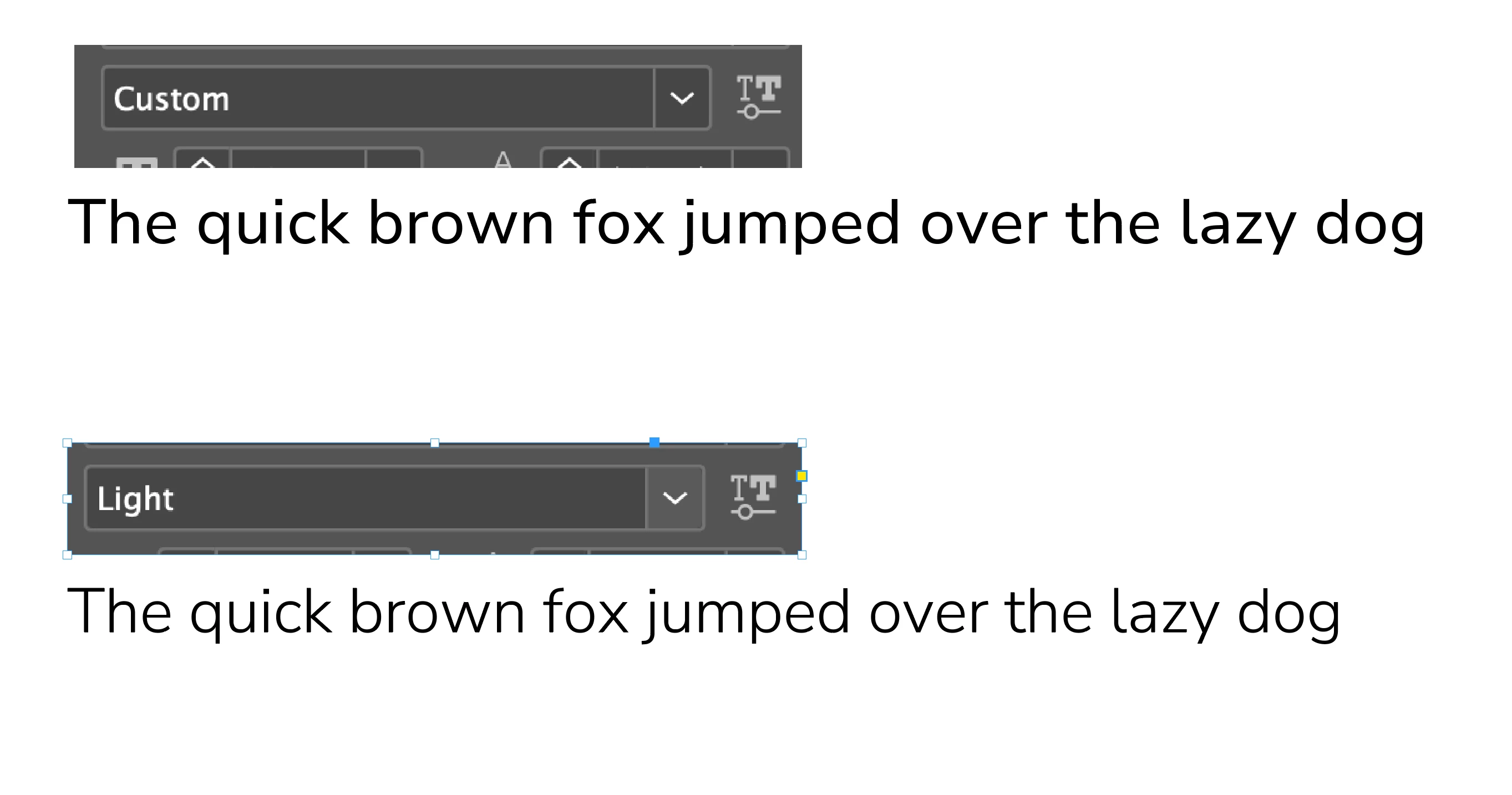
Variable Font automatically messing with spacing
Since the last update (InDesign 2024 up to date) I have noticed that on certain typefaces the variable font icon appears. Then when I either key in text, or cut and paste text into the text frame, the spacing changes below certain point sizes. I only notice this because it makes the typafce look odd.
I then noticed where the font weight should be displayed, the word custom is present. If I then go in and select the font I want ( bold, italic, regluar...) the spacing (kerning) between characters changes back to normal and the weight alters to how the font should be. Why is this auto kerning/bolding happening? I really don't want it, so is there a way of turning it off?
If you look at the images you will see the difference between how the font displays. It really is a discernable difference, enough to look like I have slected a different font.
I mentioned the paragraph style as a guess. On my machine, all this is working ok.
maybe the issues go away if you work with Optical Kerning (plus some tracking) instead of Metrical Kerning?
Hi both thanks for your replies. I am not building character or paragraph styles because it's a small job, it's just not worth it. Do you think that would fix it?
It seems the other forum threads were from last year and the problem still exists, so that is very interesting. People have tried the suggested fixes but to no avail. Seems it's just an issue with InDesign and variable fonts. Unfortuntely I don't have control over which ones I use, so I will have to battle on hoping I pick up on every discrepancy!
Are you taking the time to build a paragraph style that controls all the attributes, including the variable font weight?